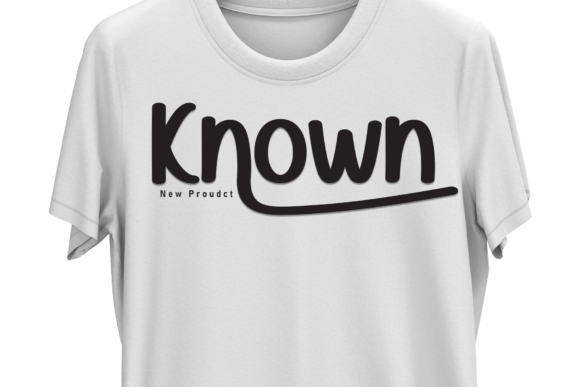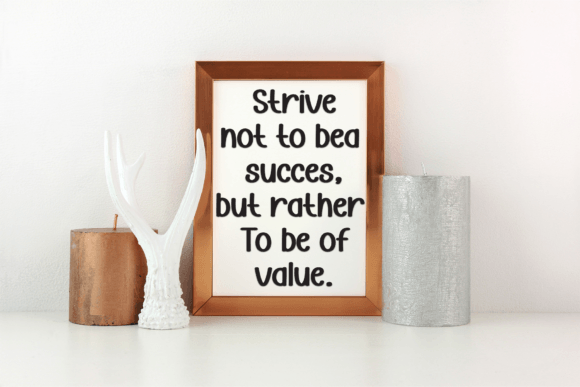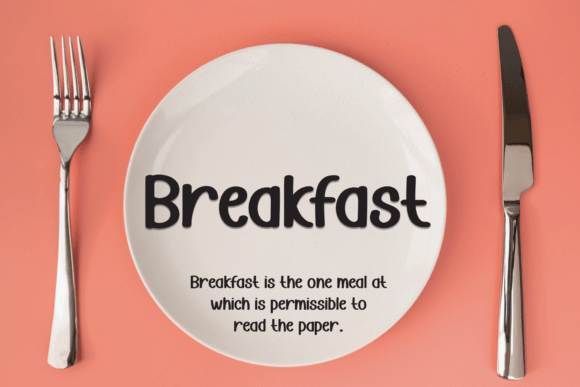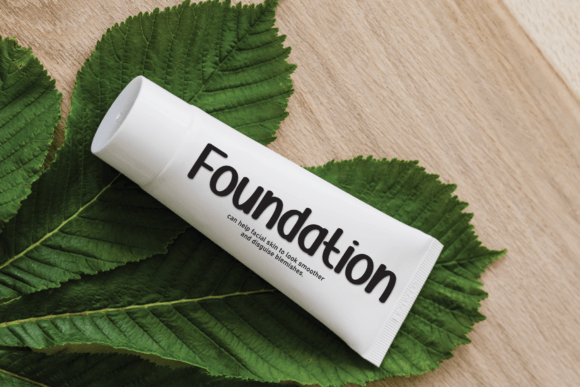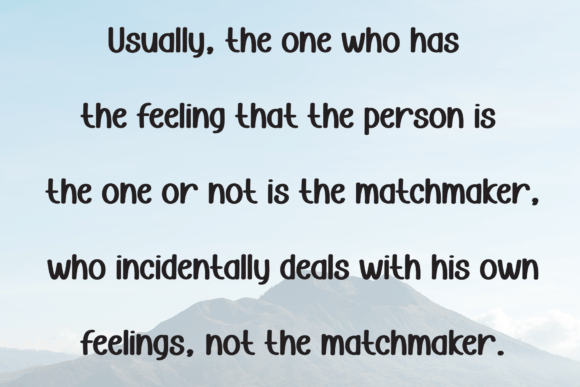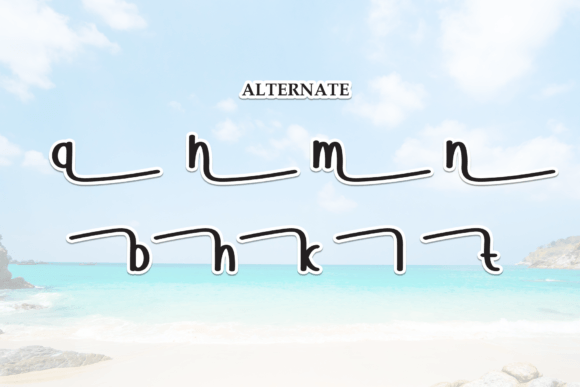
The Perfect Beachy Keen Font for Your Next Design Project
Have you ever been working on a design project and suddenly, you just can’t seem to get the right feel? You want it to be fun, light-hearted, and maybe even a little bit whimsical? That’s exactly when I turn to the Beaches Font – a sweet and friendly handwritten display font that instantly adds a touch of personality to any design.
This adorable font is perfect for writing wedding invitations, cards, or any other design that needs a fun and playful twist. And with its cute and friendly vibe, it’s no wonder why designers love using the Beaches Font to add a little extra magic to their projects.
Beaches Font Key Features
- Font Family: Beaches Font is a sans-serif font family designed specifically for body text.
- Unique Characteristics: Beaches Font features a clean and modern design with a subtle rounded edge, making it easy to read and highly legible, even at small font sizes.
Beaches Font Review
Overall, I’d say the Beaches Font is a lovely, laid-back option for any project that needs a bit of a coastal vibe. ✨ I particularly like the subtle irregularities in the font’s letterforms, which give it a charming, handmade feel.
- ✨ The font’s loose, relaxed style works beautifully for headings and titles, and its legibility is top-notch.
- ✨ I also appreciate the wide range of weights and styles available, which makes it easy to find the perfect fit for your project.
- ✨ The font’s versatility is a major strength – it works well in both digital and print applications.
However, there are a few limitations to consider. ⚠️ For one, the font’s spacing and kerning can be a bit inconsistent, which may require some manual tweaking to get just right.
- ⚠️ Additionally, the font may not be the best choice for projects that require a lot of text or dense blocks of copy – its loose style can make it feel a bit too airy and difficult to read.
- ⚠️ Finally, the font’s character set is somewhat limited, which may be a concern for projects that require a lot of special characters or languages.
Overall, I’d recommend the Beaches Font for projects that need a relaxed, coastal vibe – just be aware of its limitations and take the time to fine-tune its spacing and kerning as needed.
Getting the Most Out of the Beaches Font
Use the Beaches Font for designs related to summer, beach, or tropical themes.
– Pair it with images of palm trees, seashells, or sandy beaches.
– Use it for titles, headings, or body text in beach-themed presentations or documents.
– Experiment with different font sizes and styles to create visual interest.
Use the Beaches Font for:
– Summer promotions or advertisements.
– Beach-themed presentations or reports.
– Tropical or coastal branding.
– Social media graphics or posts related to summer or beach activities.
Alternatives to Beaches Font
Great Vibes is a modern, elegant script font perfect for creating a relaxed and casual atmosphere. It’s ideal for use in headings, titles, and quotes. Great Vibes is more versatile than Beaches Font and can be used in various design contexts, from wedding invitations to social media graphics.
Comparison to Beaches Font: Great Vibes is more refined and sophisticated, while Beaches Font has a more laid-back, beachy feel.
Carolyna Pro is a beautiful, elegant script font designed for use in high-end branding and design projects. It’s perfect for creating a luxurious and sophisticated atmosphere. Carolyna Pro is more elegant and refined than Beaches Font and has a more classic feel.
Comparison to Beaches Font: Carolyna Pro is more formal and sophisticated, while Beaches Font is more casual and relaxed.
Dancing Script is a playful, elegant script font perfect for creating a fun and lively atmosphere. It’s ideal for use in headings, titles, and quotes. Dancing Script is more whimsical and playful than Beaches Font and can add a touch of personality to your designs.